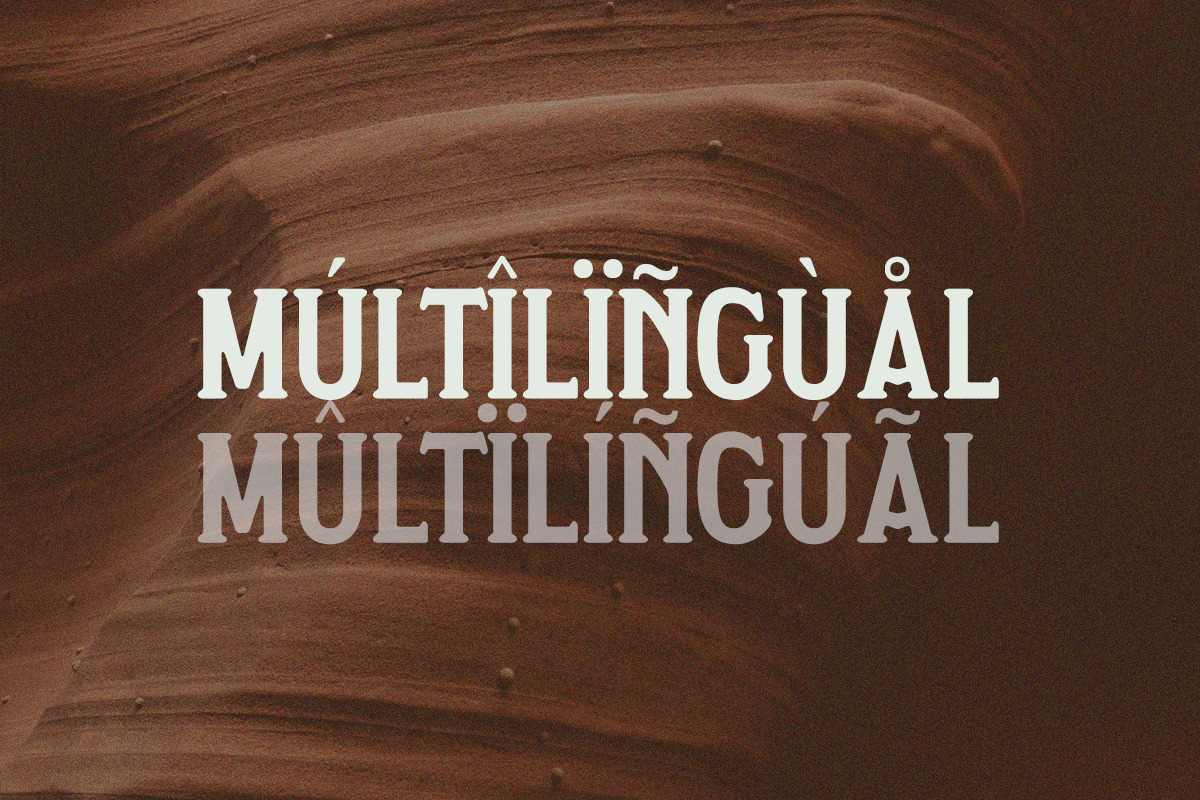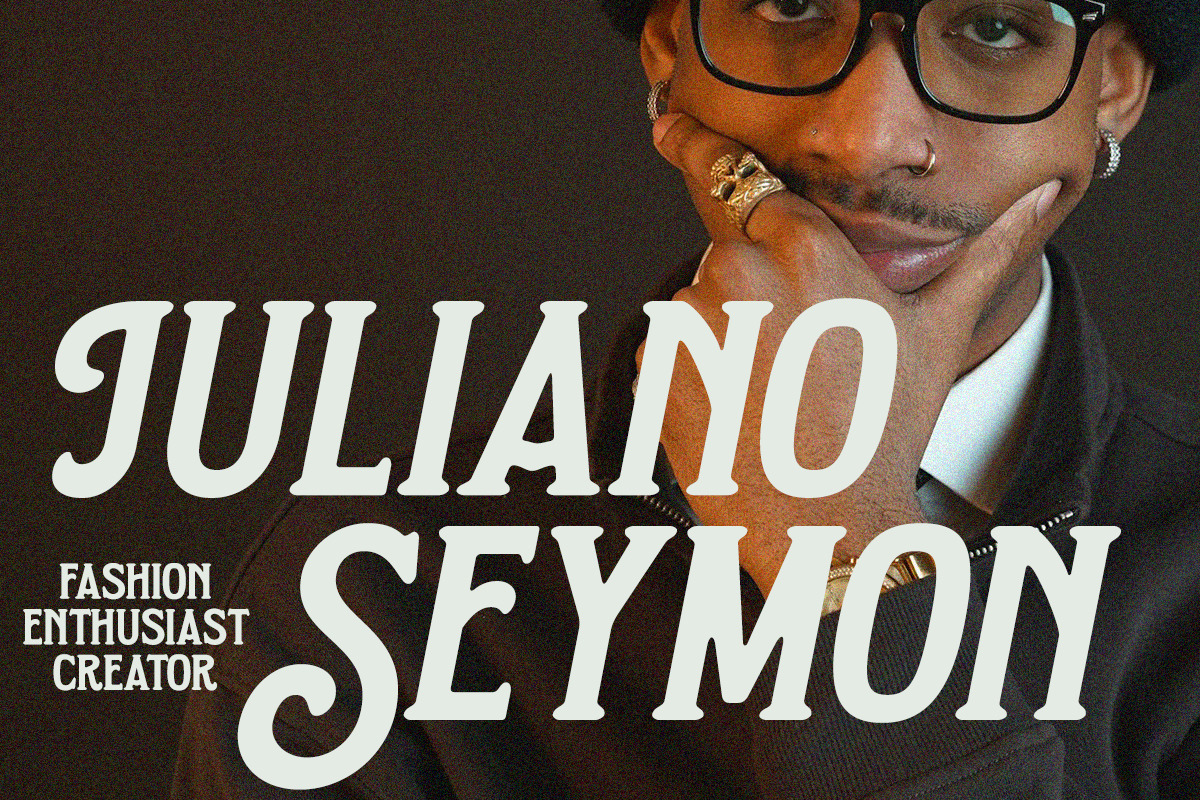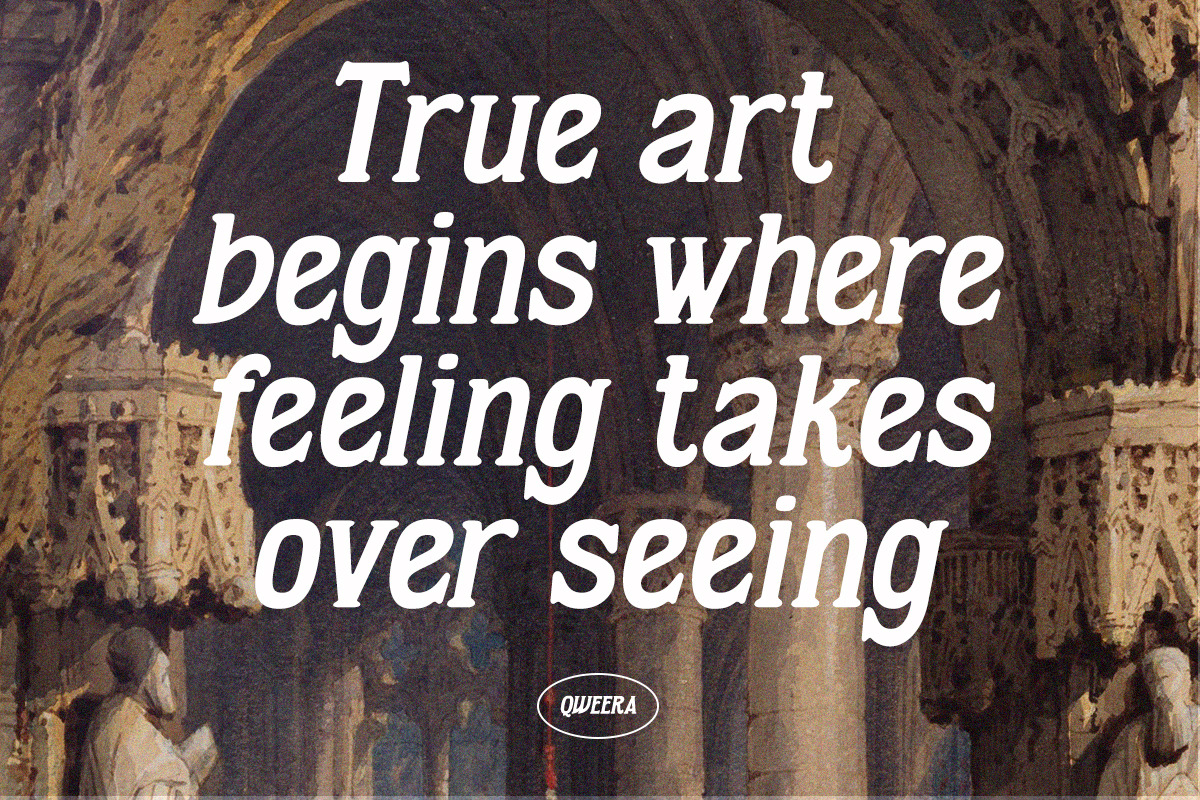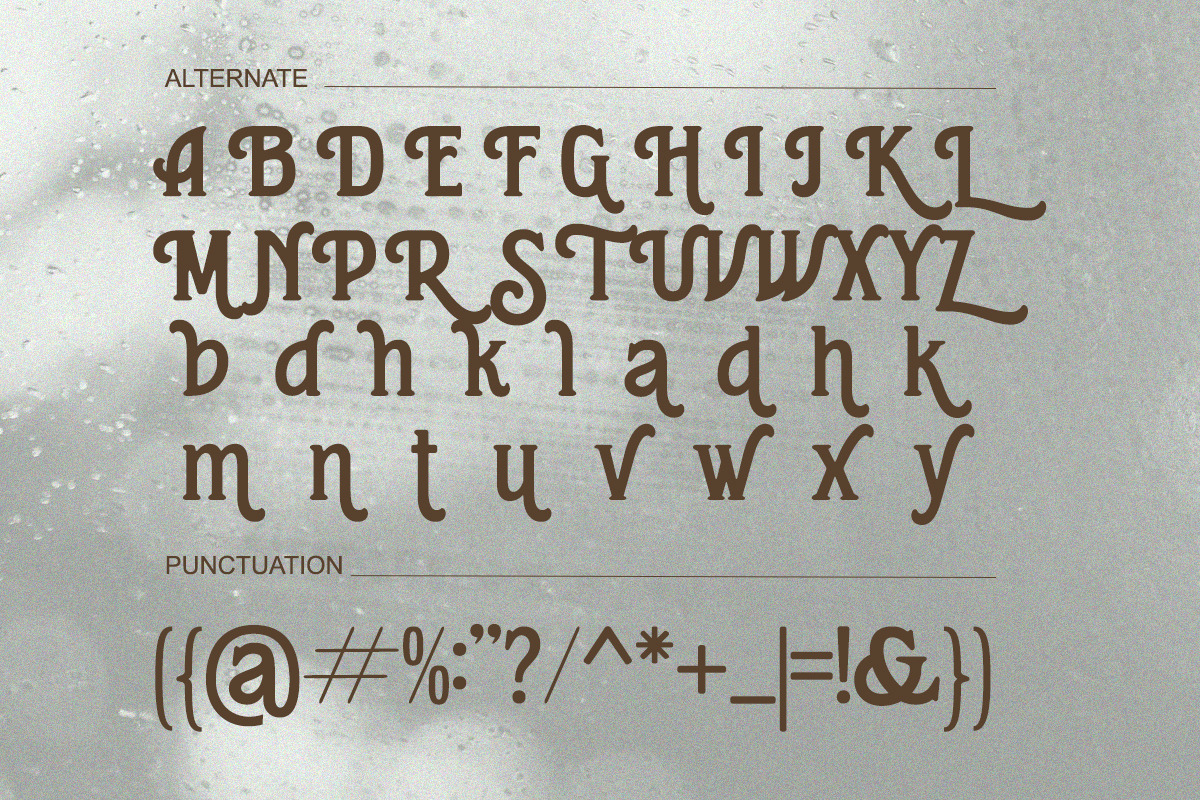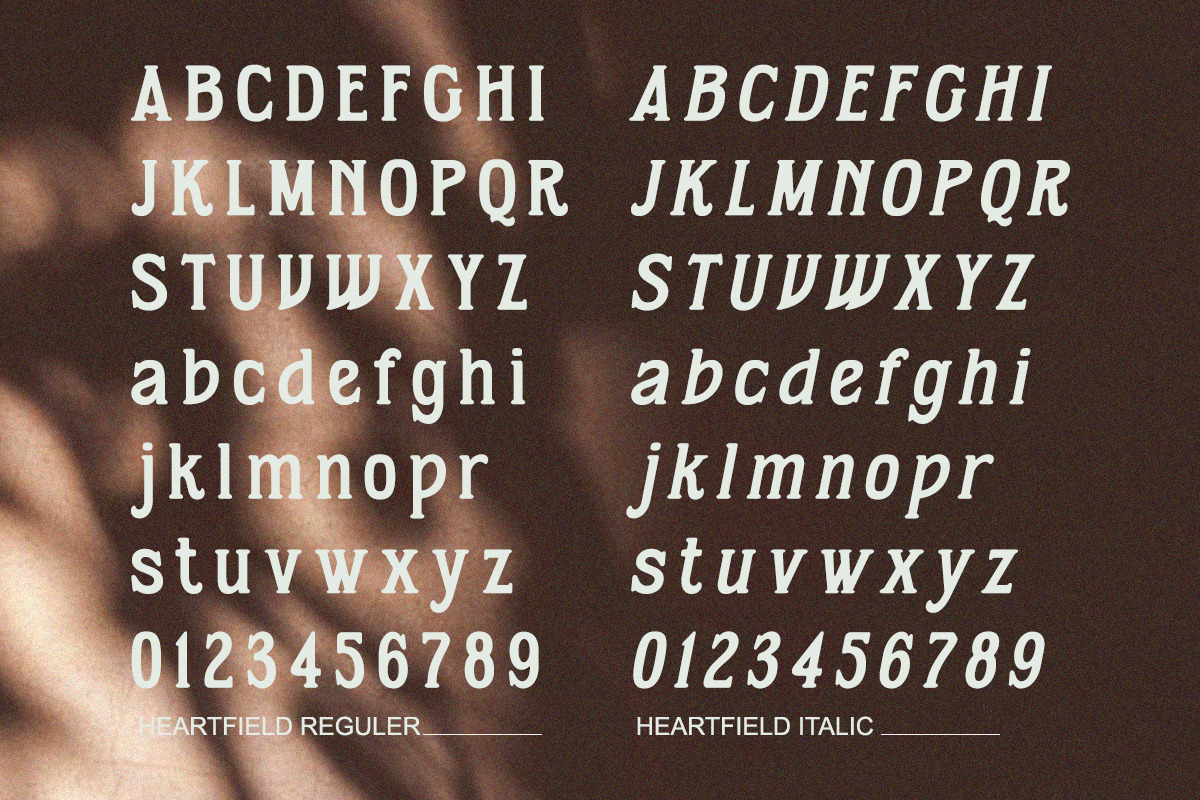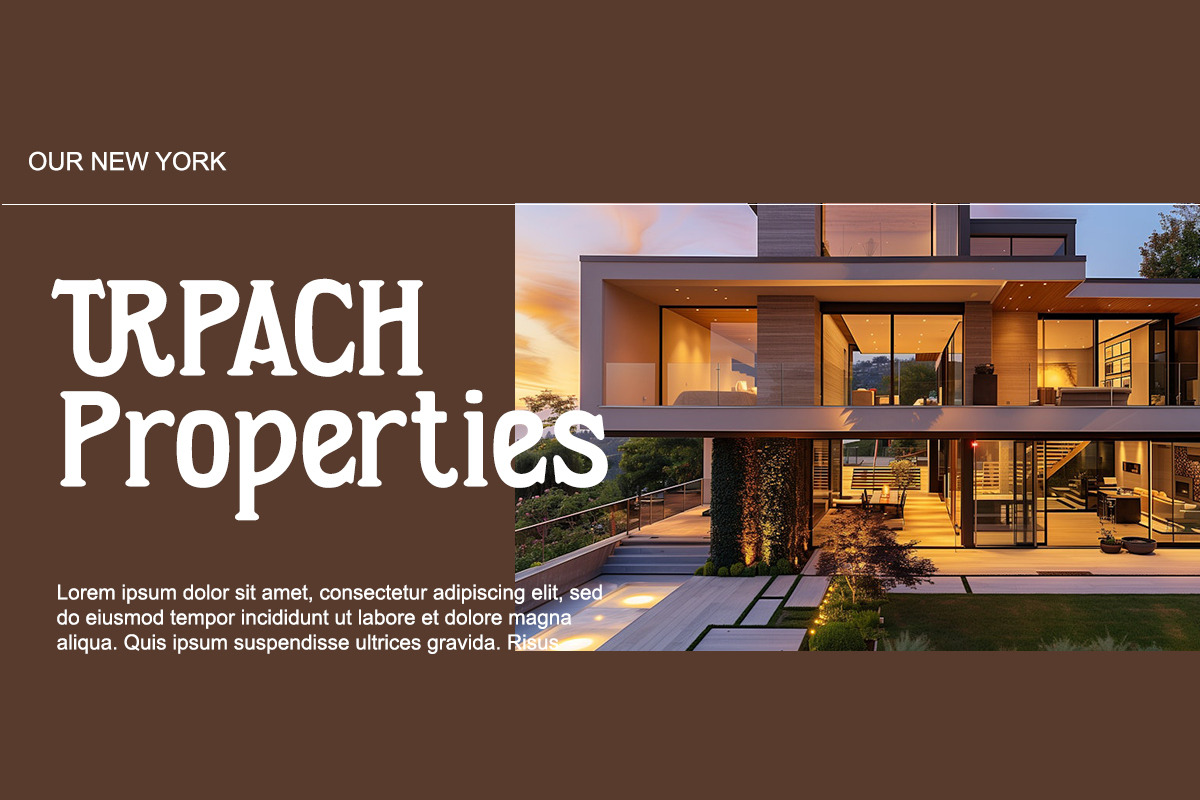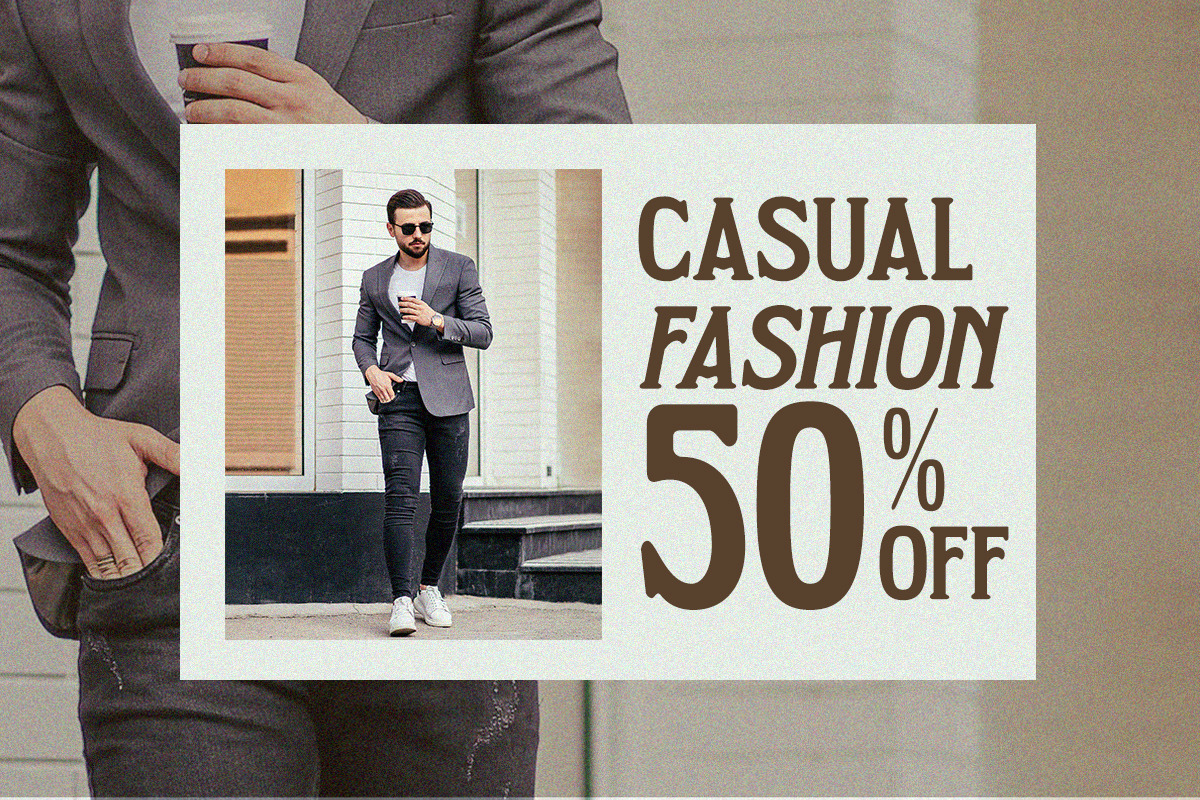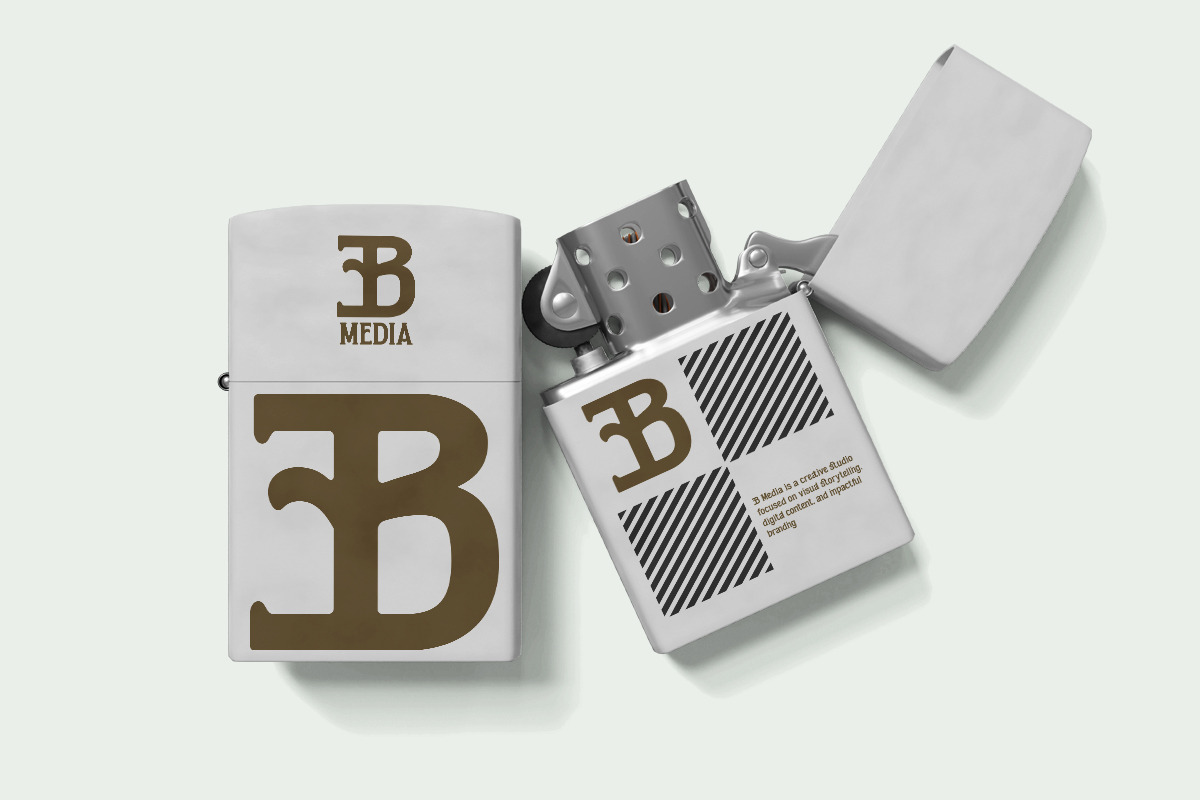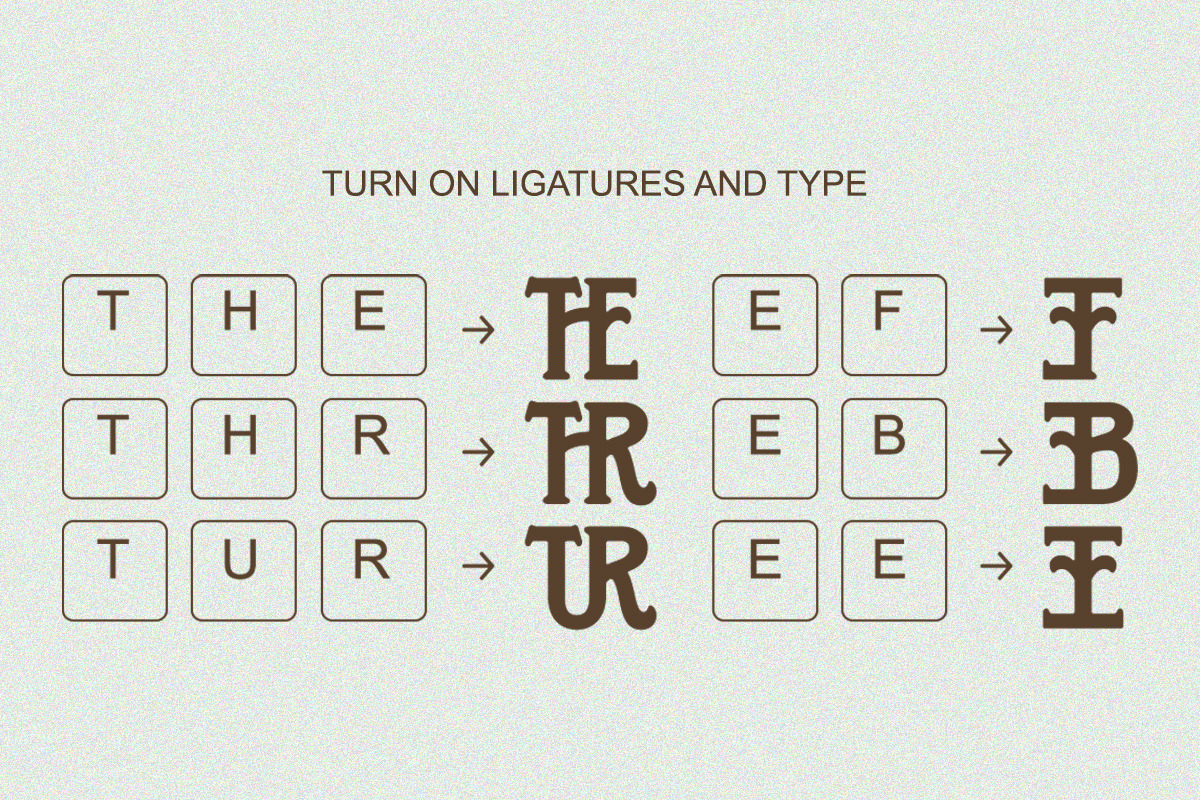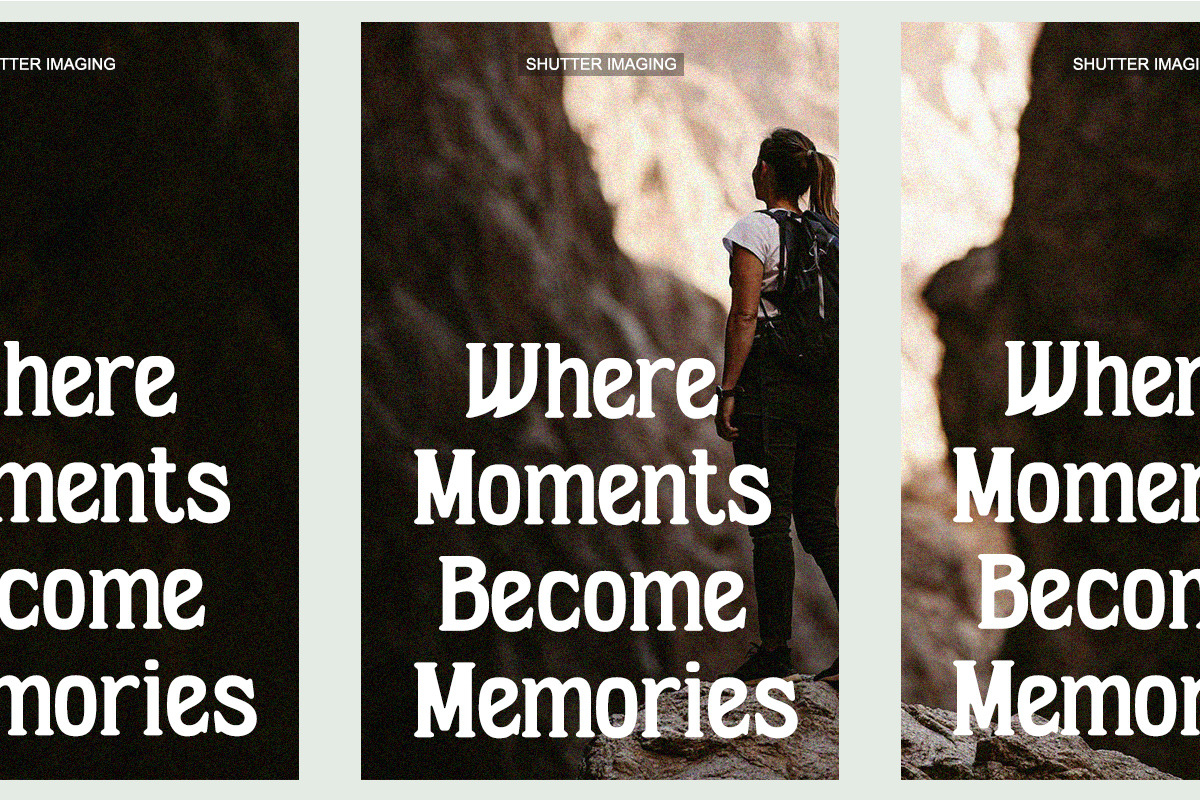
Heartfield - Vintage Condensed
Heartfield is a vintage condensed serif font with nostalgic flair and strong visual impact.
Its bold letterforms, subtle curves, and old-school elegance make it the perfect typeface for designers aiming to blend retro aesthetics with modern refinement. Whether you're working on editorial headlines, packaging, or lifestyle branding — Heartfield delivers heritage, class, and bold personality.
Crafted to give your design projects a timeless touch while staying sharp and contemporary.
- Regular & Italic
- Condensed letter proportions
- Alternates & stylistic sets
- Retro branding projects
- Vintage packaging labels
- Editorial headlines
- Fashion lookbooks
- Poster & flyers
- Social media graphics
Heartfield brings out the bold soul of timeless design.